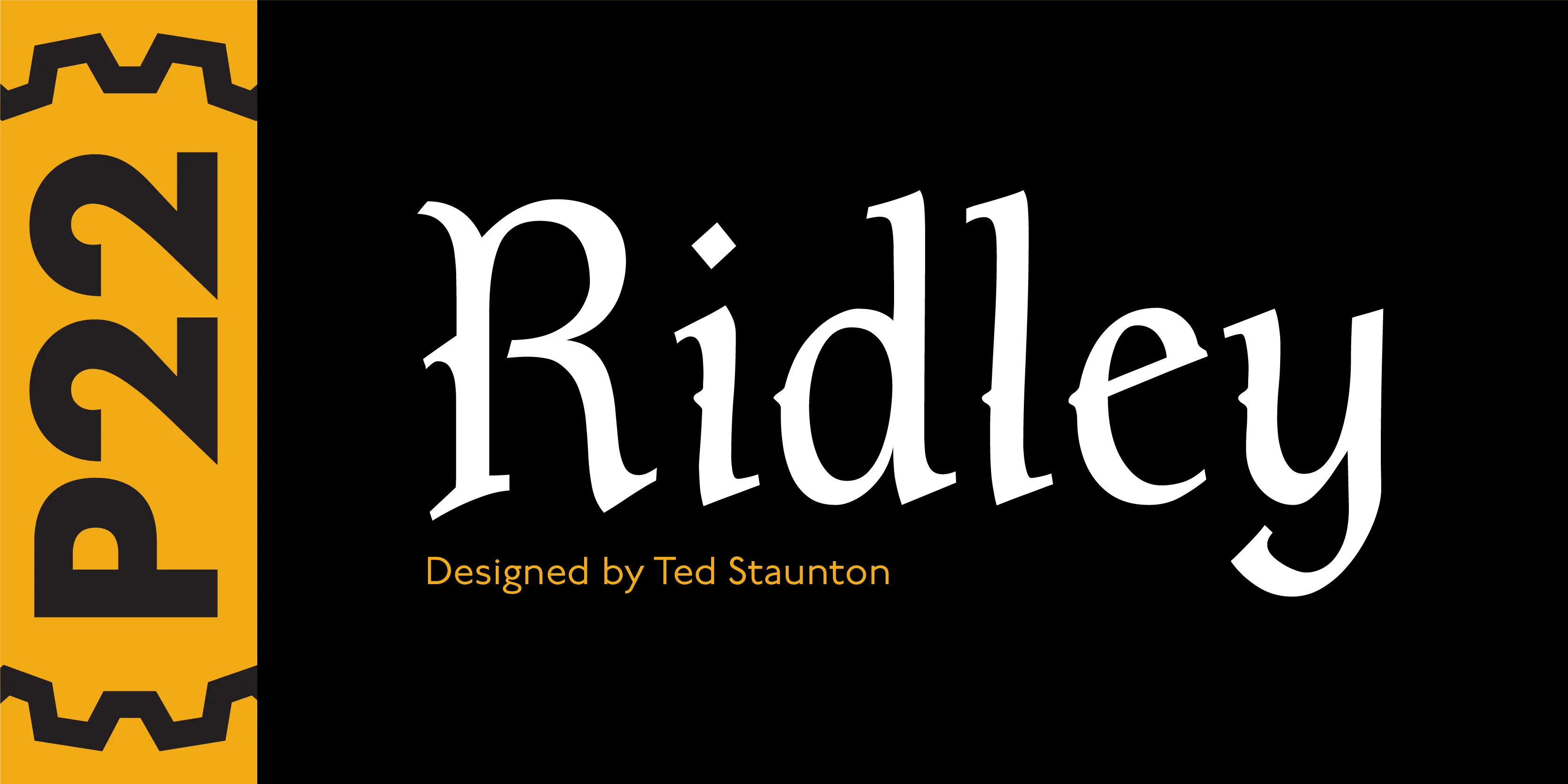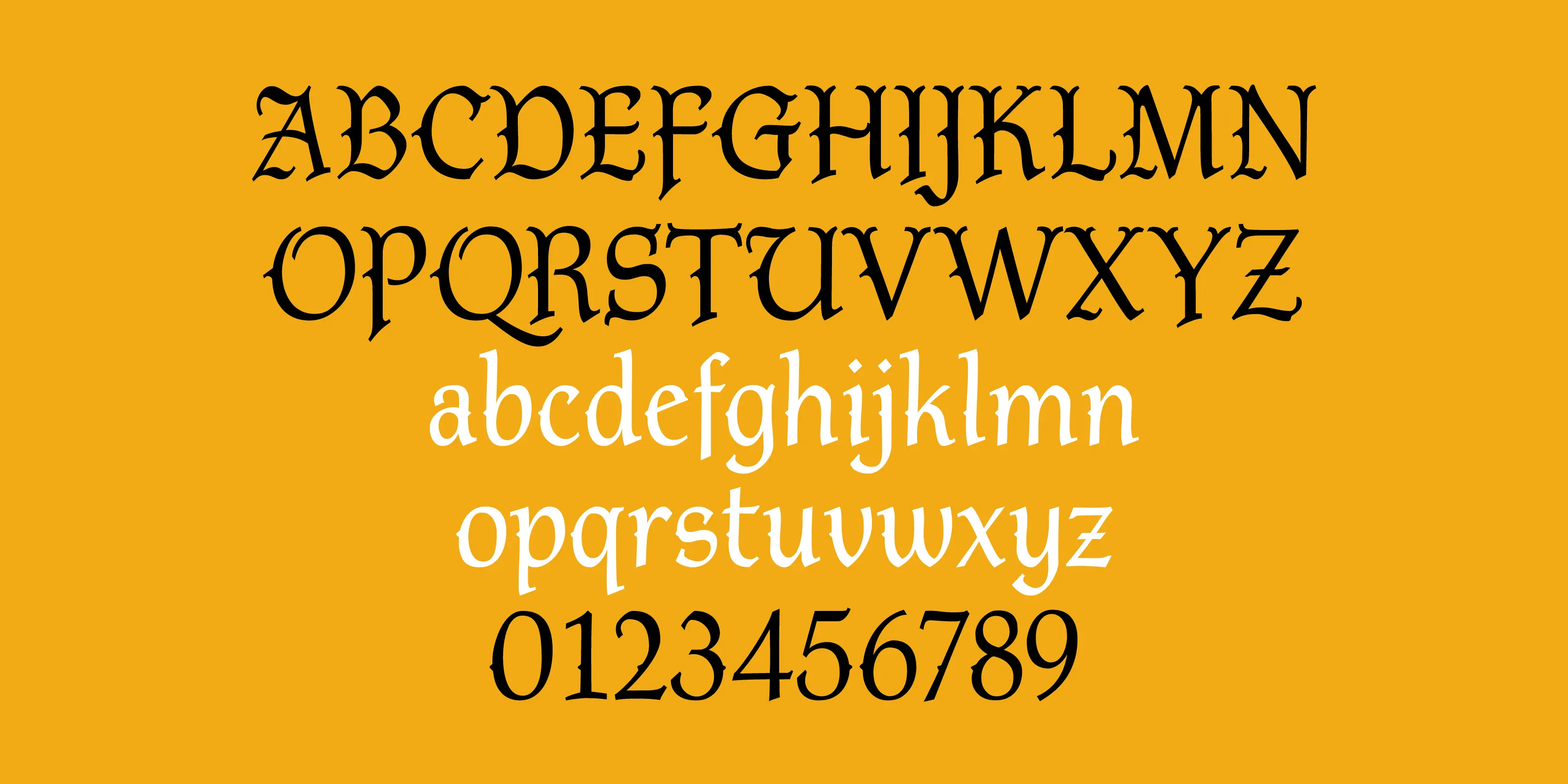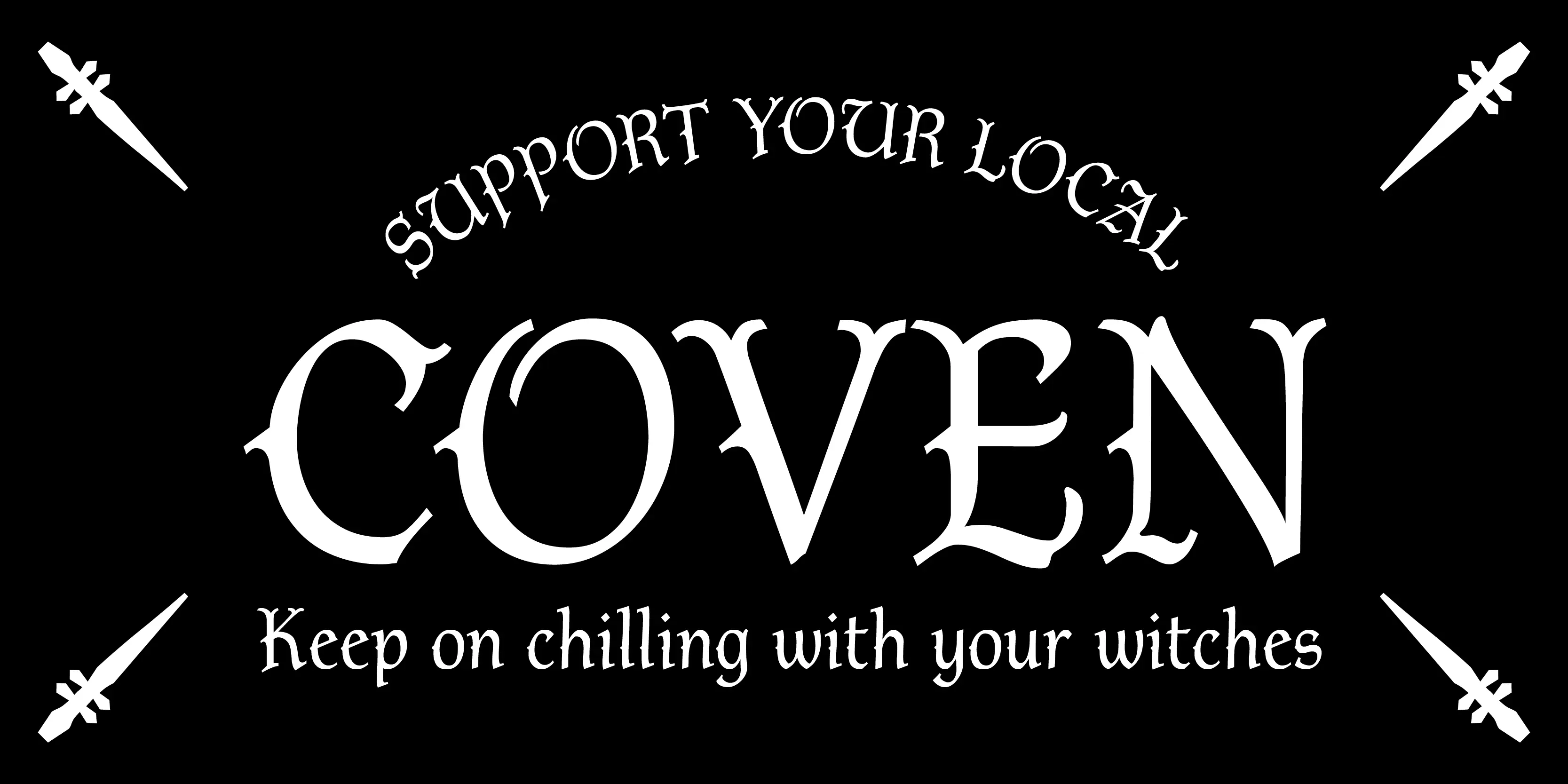
Ridley Font
Ridley
Ridley is a calligraphic-influenced, decorative, medieval font combining Roman and Gothic forms. It is named for Nicholas Ridley and similar in style to Staunton’s Latimer font. Ridley and Latimer were protestants burned together at the stake in 1555 during the reign of Queen “Bloody” Mary.